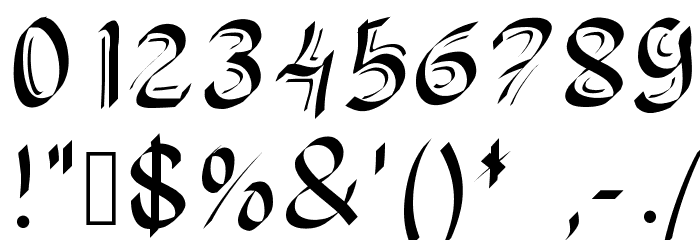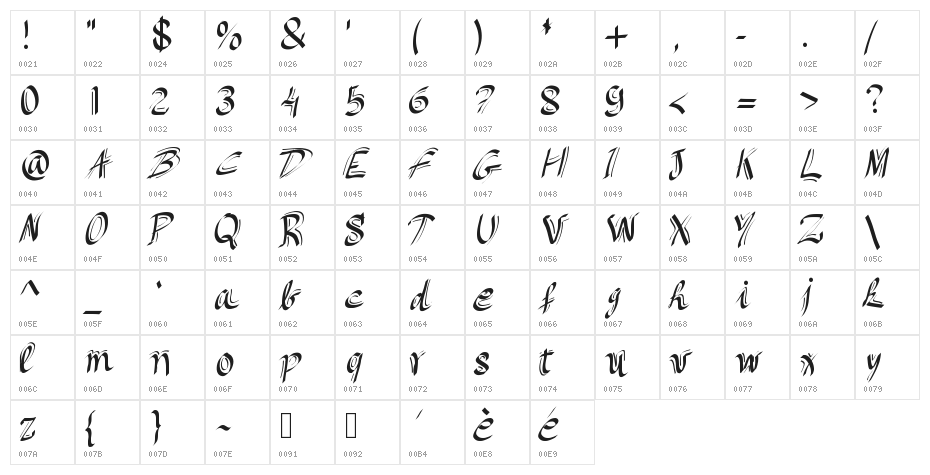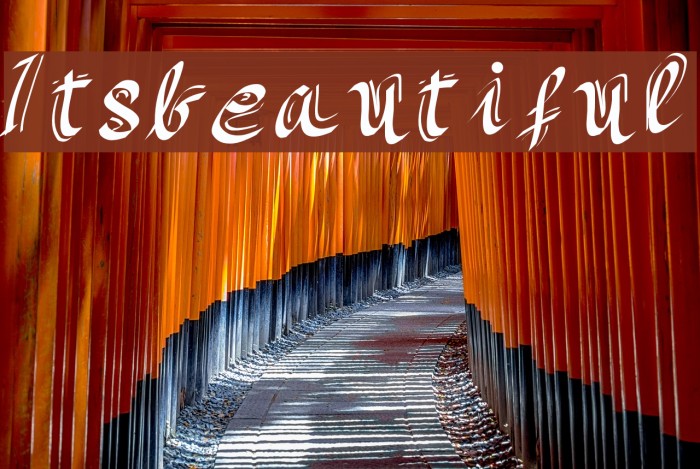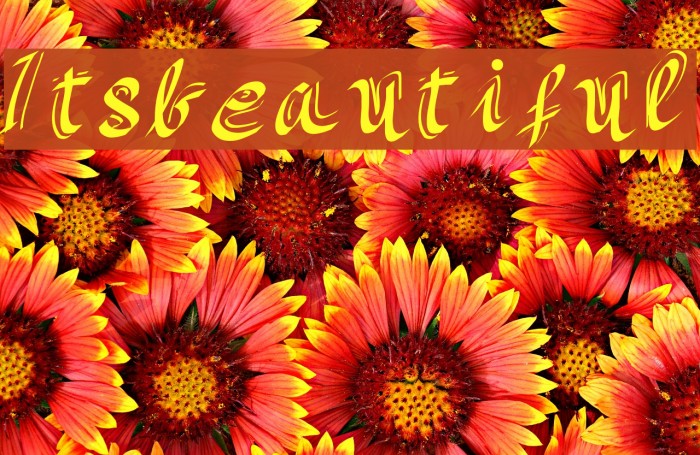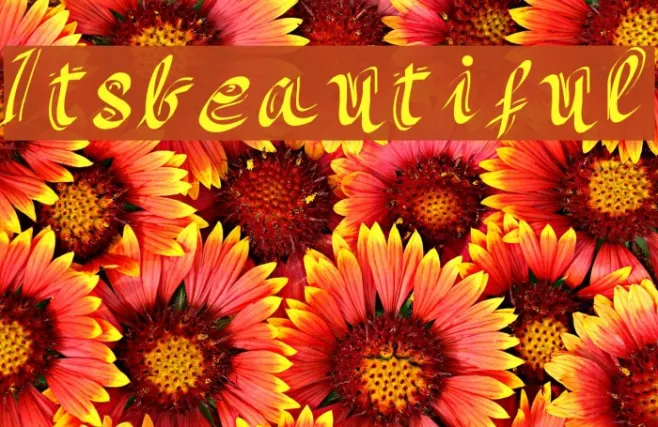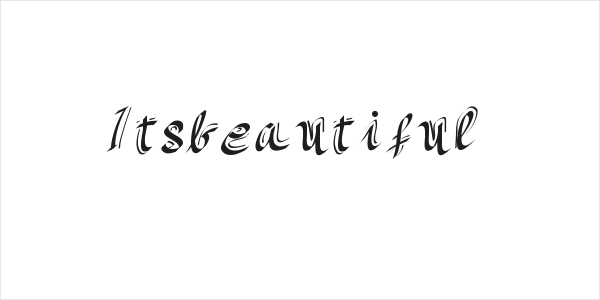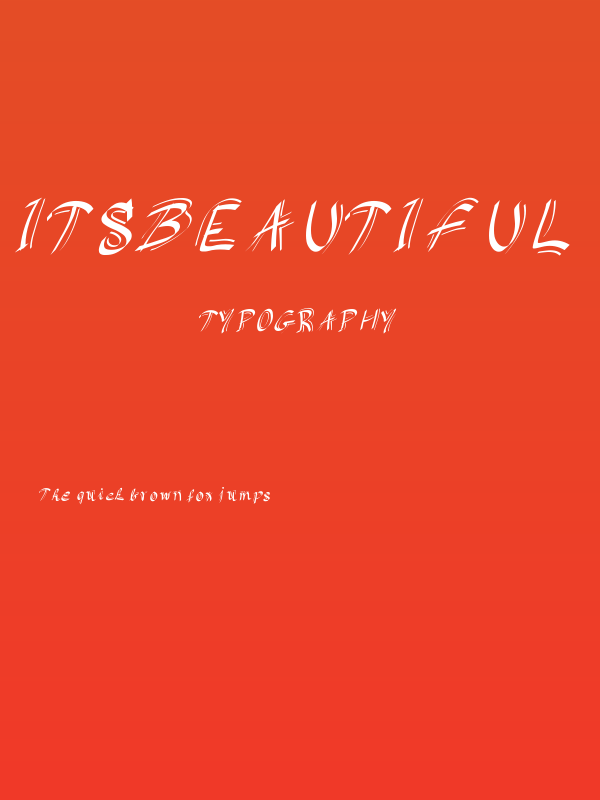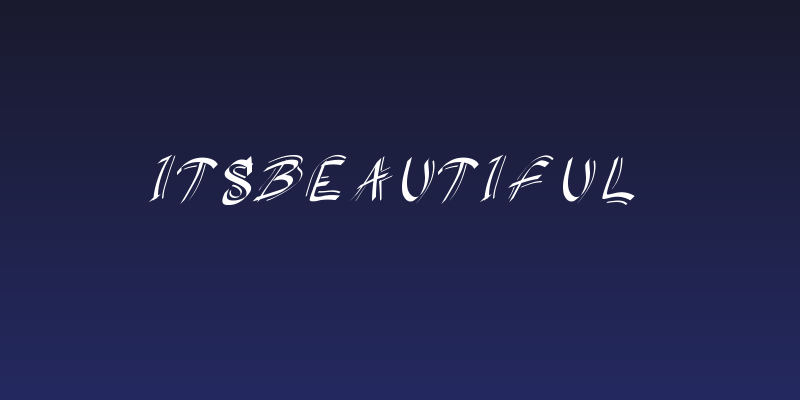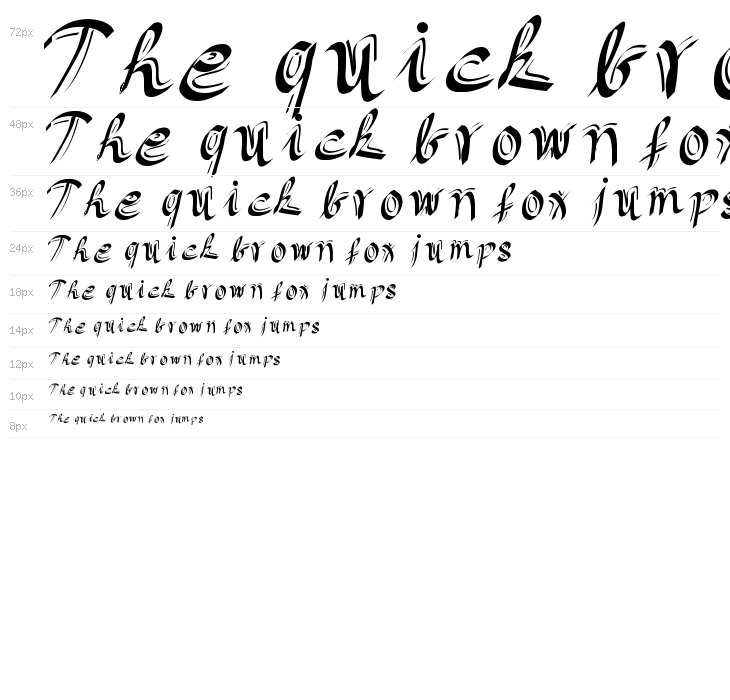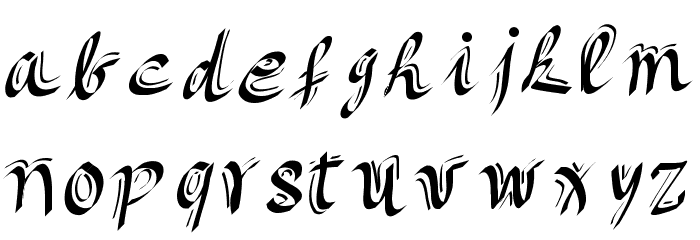
Itsbeautiful Font
Itsbeautiful Description
This font features a dynamic and energetic style with sharp, angular strokes and a brush-like appearance. The letters have a distinct slant, giving them a sense of motion and fluidity. The uppercase and lowercase characters maintain a consistent style, with exaggerated curves and pointed ends that create a dramatic effect. The numbers and special characters follow the same design principles, ensuring a cohesive look across all elements. This font's unique aesthetic is both bold and artistic, making it stand out in any design context.
| Proposed Projects | Ideal for projects that require a bold and artistic touch, such as branding, posters, album covers, and creative advertising. |